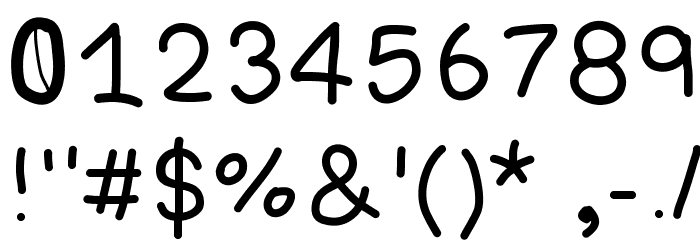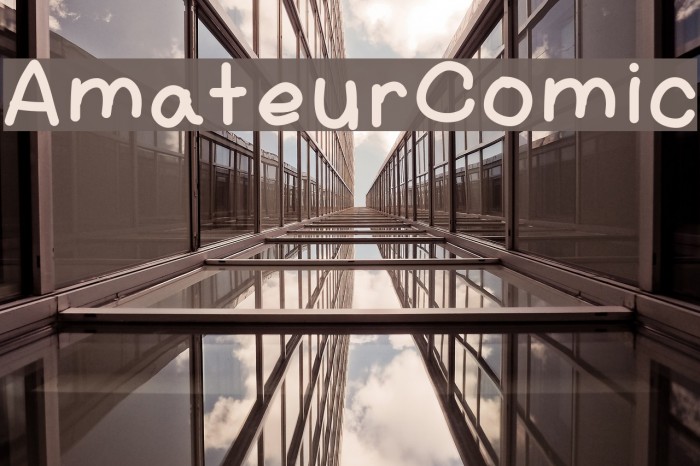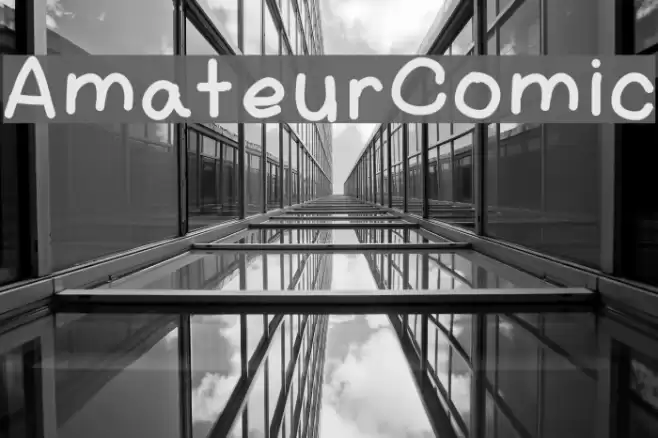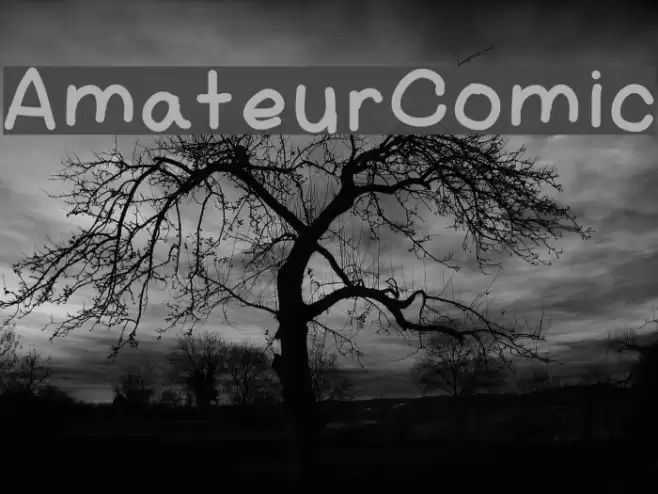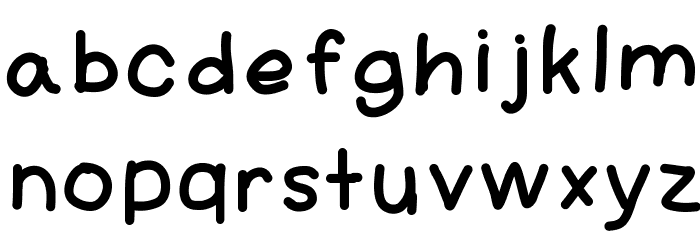
AmateurComic Font
| Catégories | Comic |
| Style général | Casual |
| Cas d'utilisation | Headlines, Informal text, Branding |
| Projets proposés | Ideal for children's books, comic strips, casual invitations, and playful branding. |